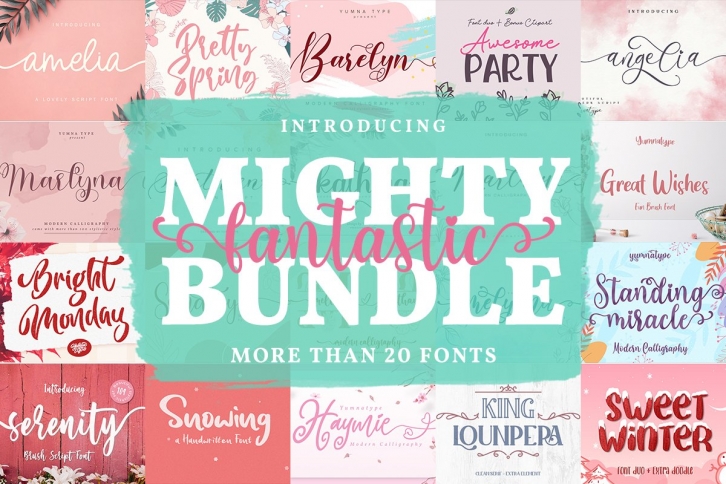
Mighty Bundle is a trendy and unique font with an authentic style. It was designed by Yumna Type and it's a great choice for creative people who need such a font. It was released on July 18, 2020 and the file size is 4.84 MB. Mighty Bundle will add an organic vibe to any design idea!